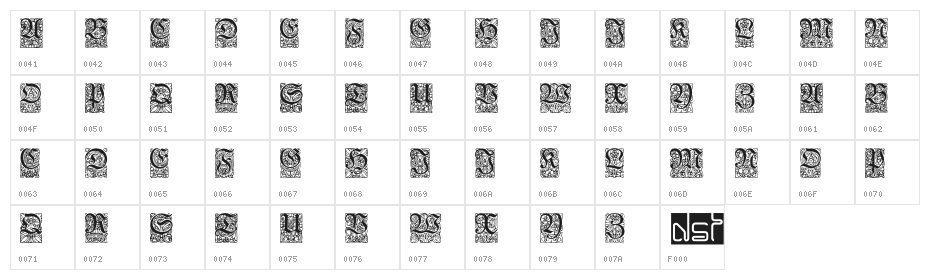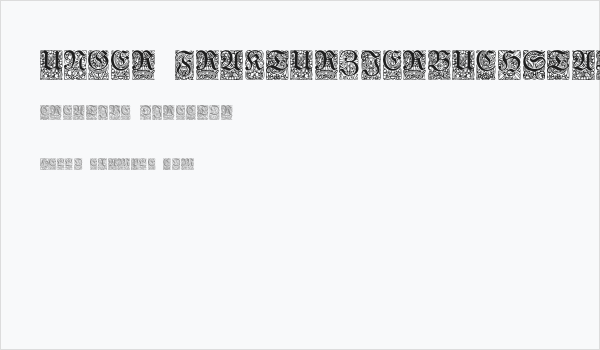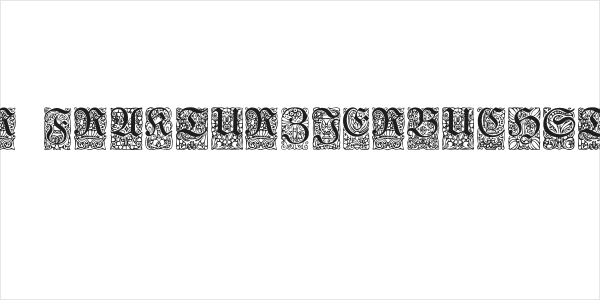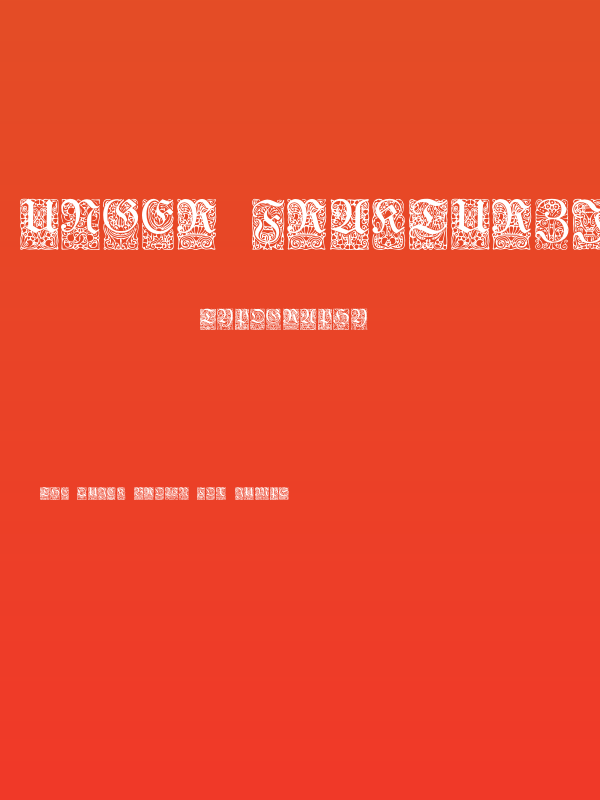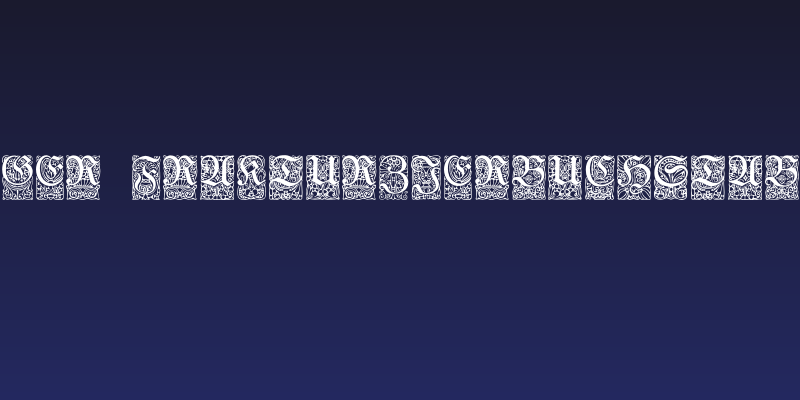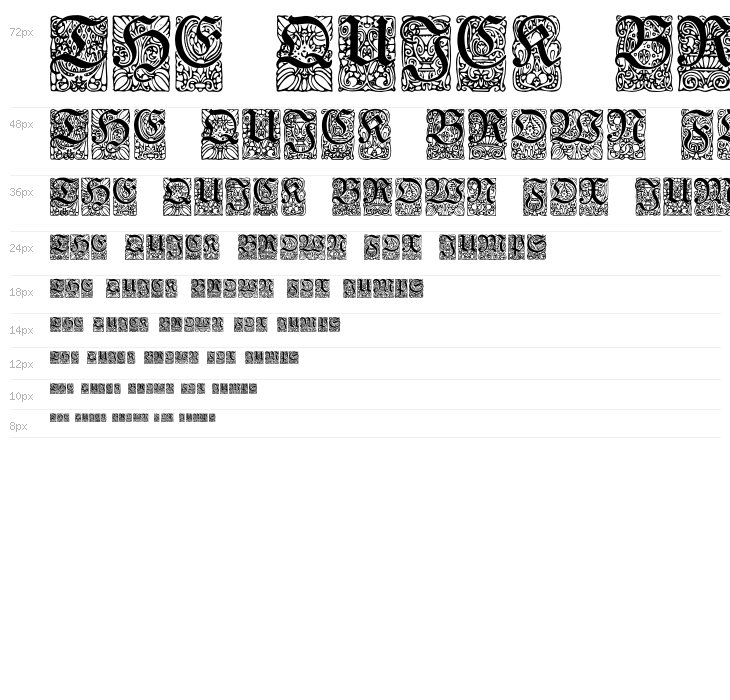
Unger-FrakturZierbuchstaben Font
Unger-FrakturZierbuchstaben Description
This font is a highly decorative and ornate typeface, characterized by intricate floral and vine-like embellishments that fill each letter. The letters are enclosed within a square, giving them a structured appearance despite the elaborate detailing. The style is reminiscent of historical manuscripts, with a strong Gothic influence that adds a sense of antiquity and elegance. The complexity of the design makes it more suitable for decorative purposes rather than readability in large blocks of text. Each character is unique, with varying levels of detail that create a visually captivating effect.
| Use Case | Logos, Headlines, Decorative elements |
| Proposed Projects | Ideal for use in vintage-themed projects, wedding invitations, book covers, or any design requiring a historical or luxurious touch. |